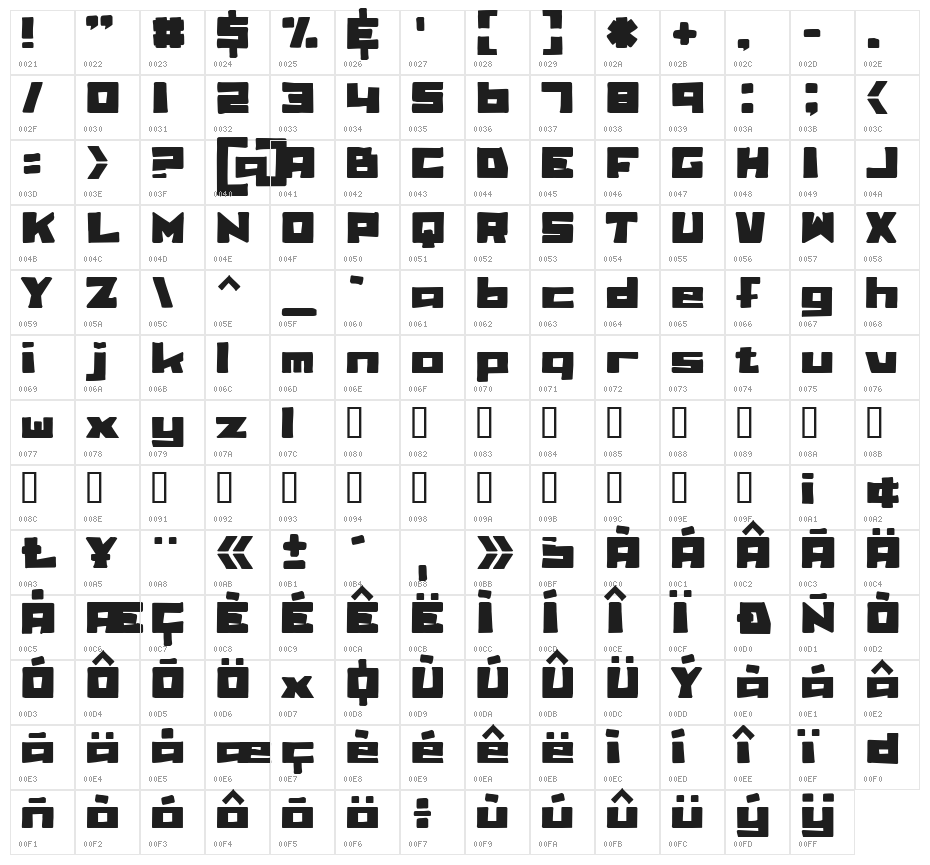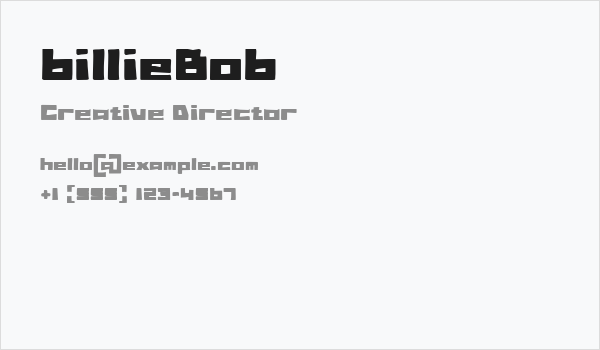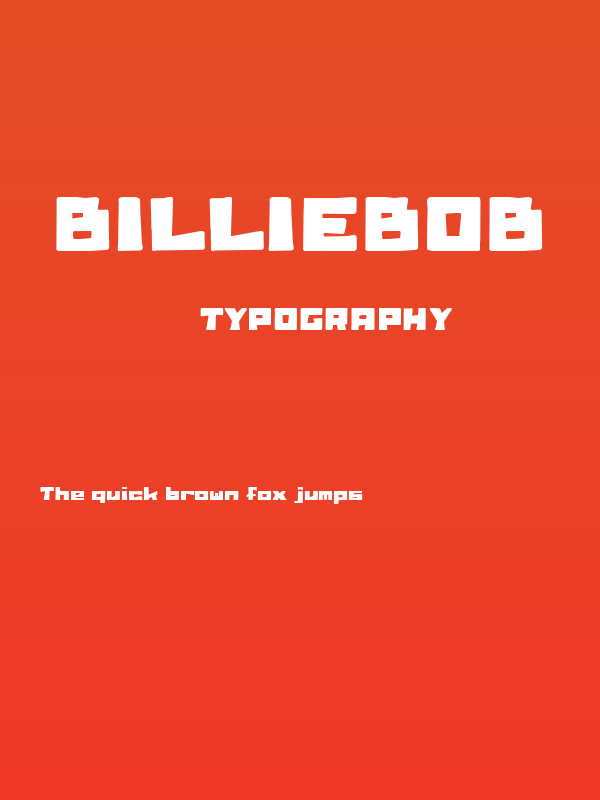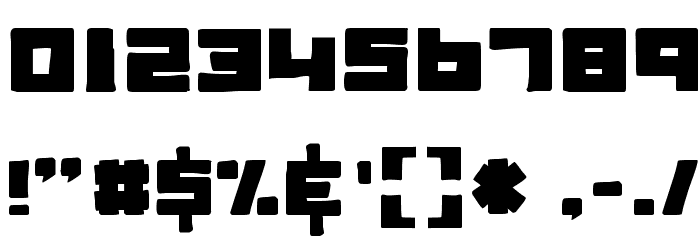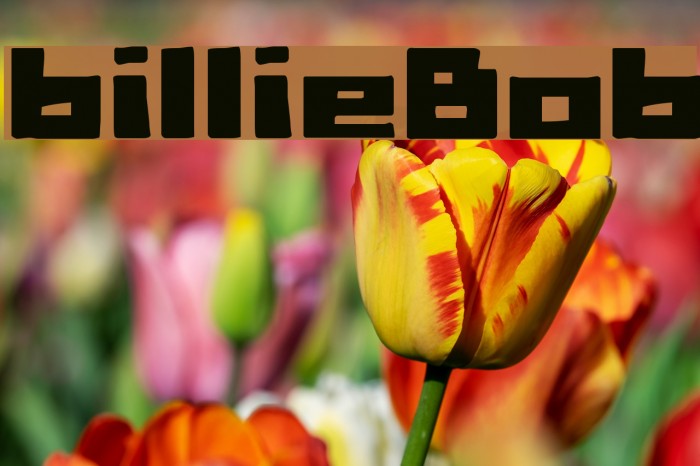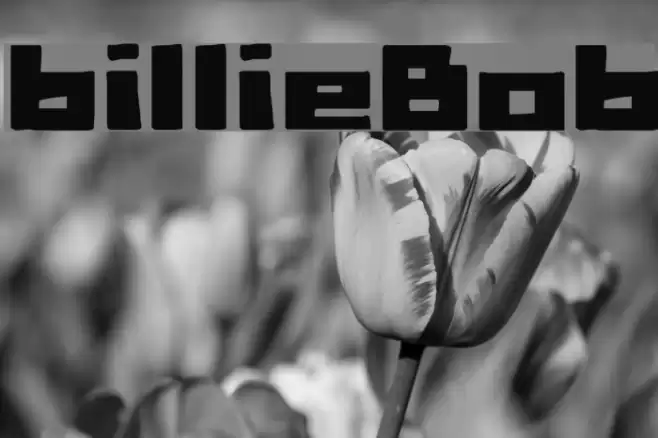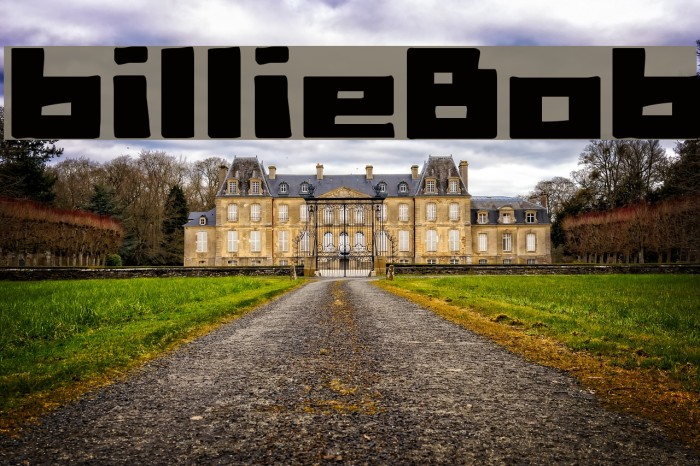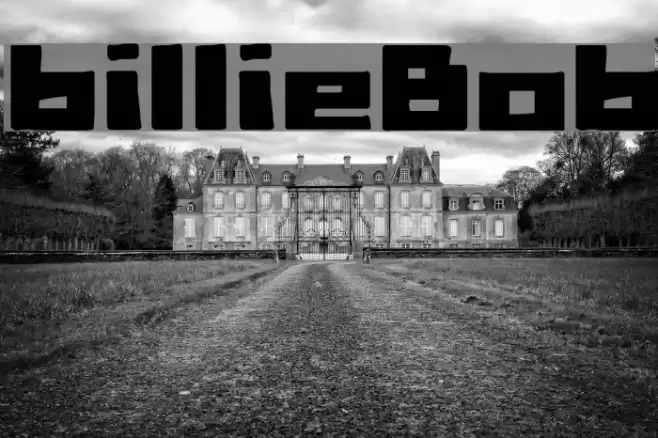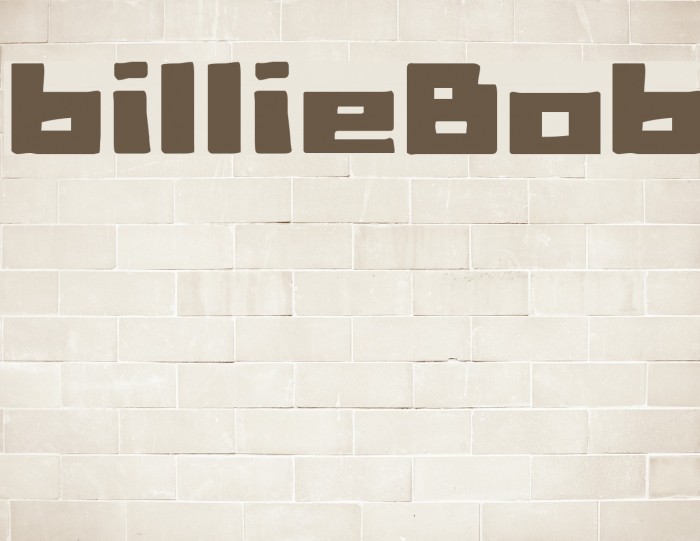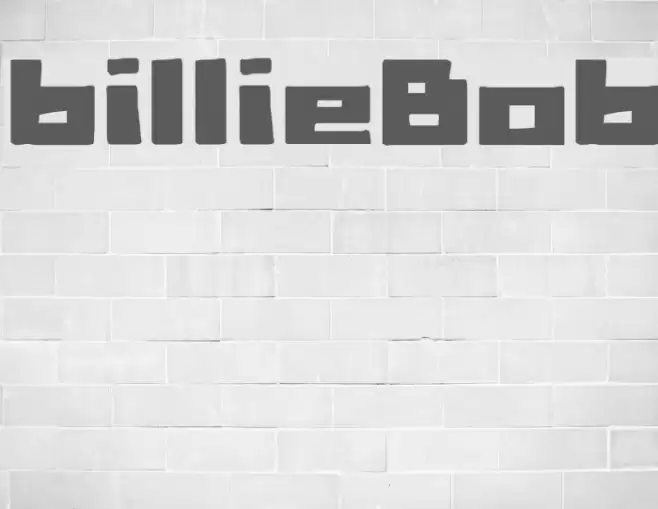
billieBob Font
billieBob Description
This font features a bold and blocky design with a strong geometric influence. The characters are constructed with thick, uniform strokes, giving them a robust and impactful appearance. The angular shapes and sharp edges contribute to a modern and edgy aesthetic, making it suitable for attention-grabbing headlines or logos. The uppercase and lowercase letters maintain a consistent style, while the numerals and special characters complement the overall design with similar boldness and structure. The font's distinct and assertive look makes it ideal for projects that require a strong visual presence.
| Proposed Projects | Ideal for headlines, logos, posters, and branding materials that require a strong visual impact. |